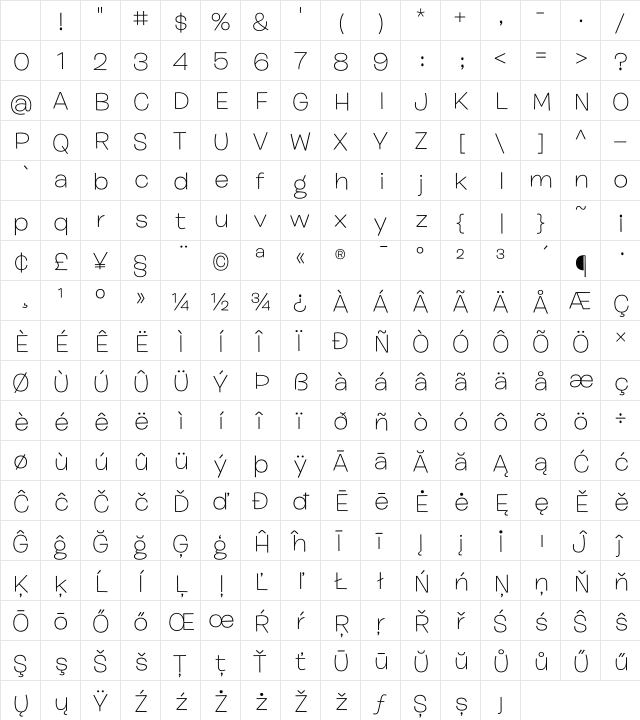
Burbank Big Wide Light
Foundry: House Industries
Designer: Tal Leming
Design Context for Burbank Big Wide
Burbank Big Wide is a composed and adaptable typeface that performs quietly and consistently across a wide range of design contexts. Its slender proportions lend an understated elegance to any composition.